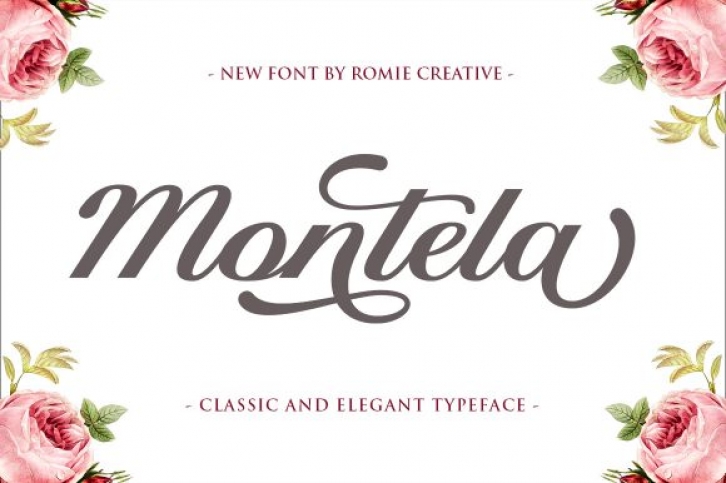
Montela is a stylish and incredibly assertive script font. It looks stunning on wedding invitations, thank you cards, quotes, greeting cards, logos, business cards and every other design which needs a personalized touch. This font is PUA encoded which means you can access all of the glyphs and swashes with ease!